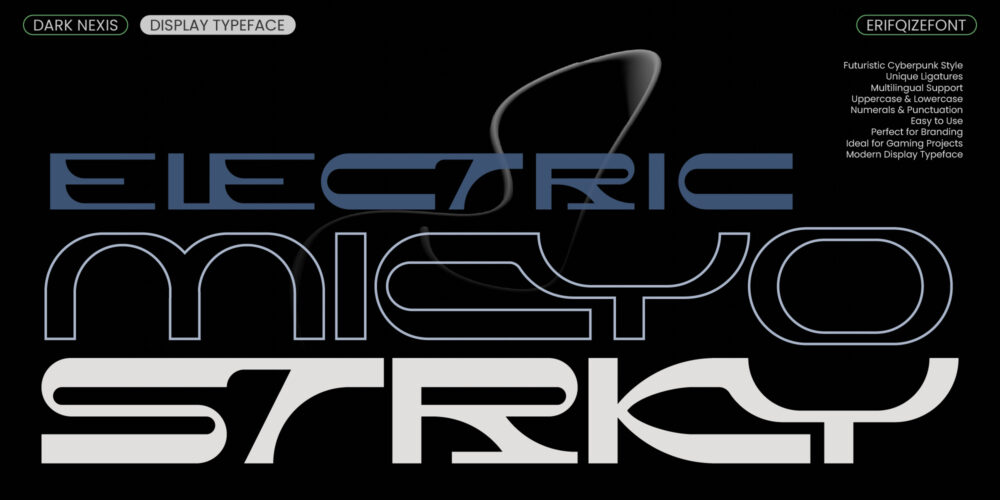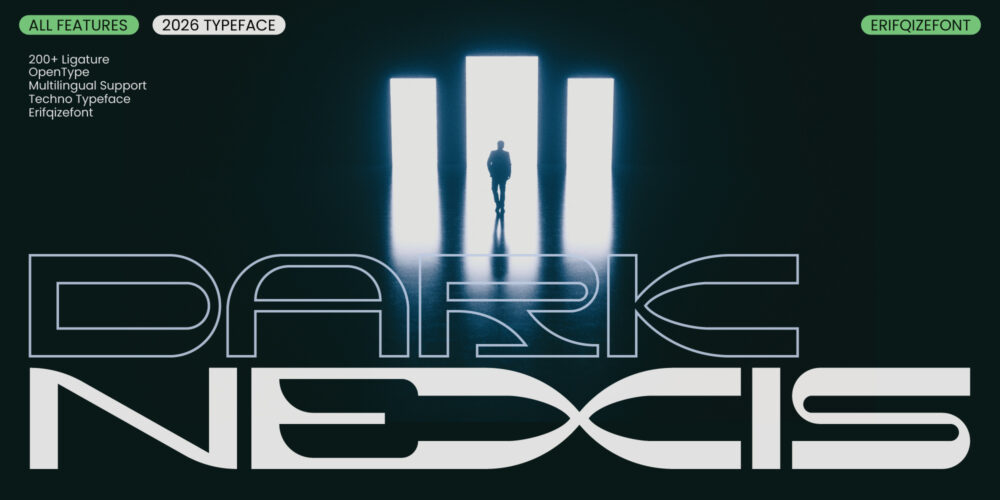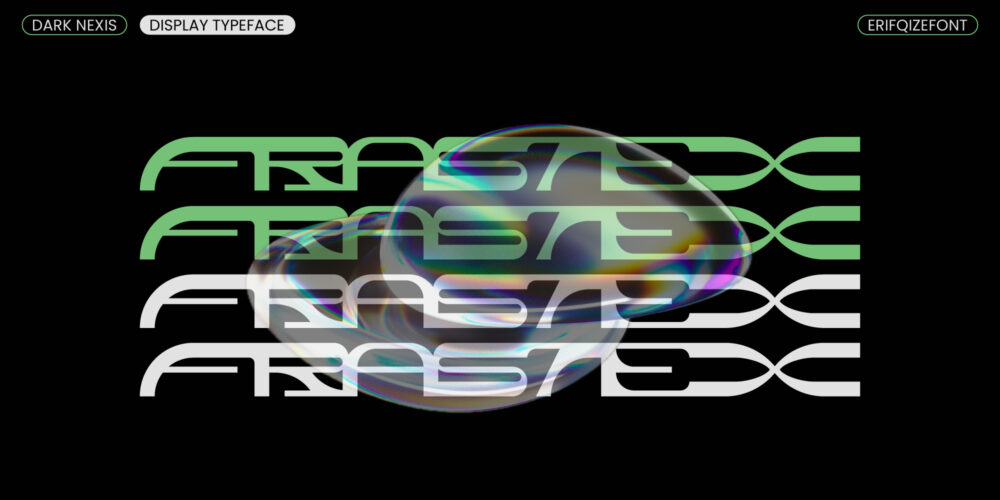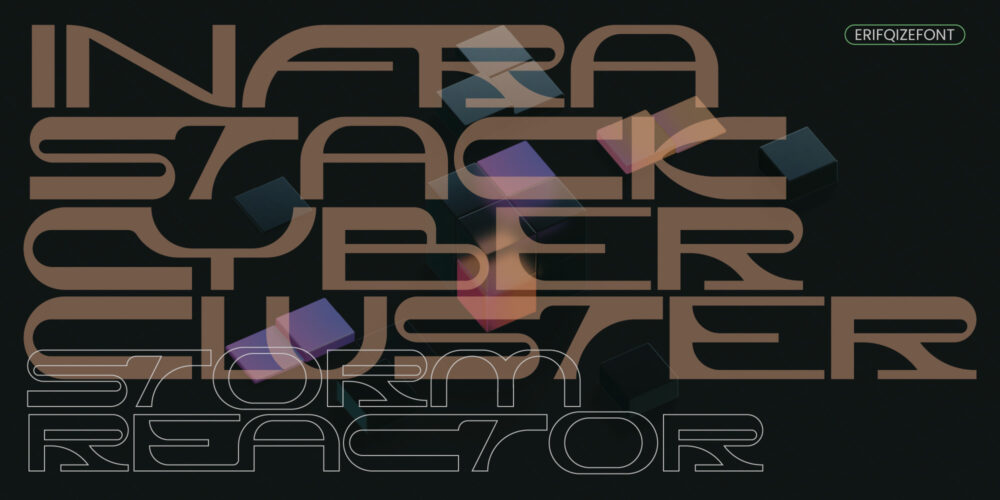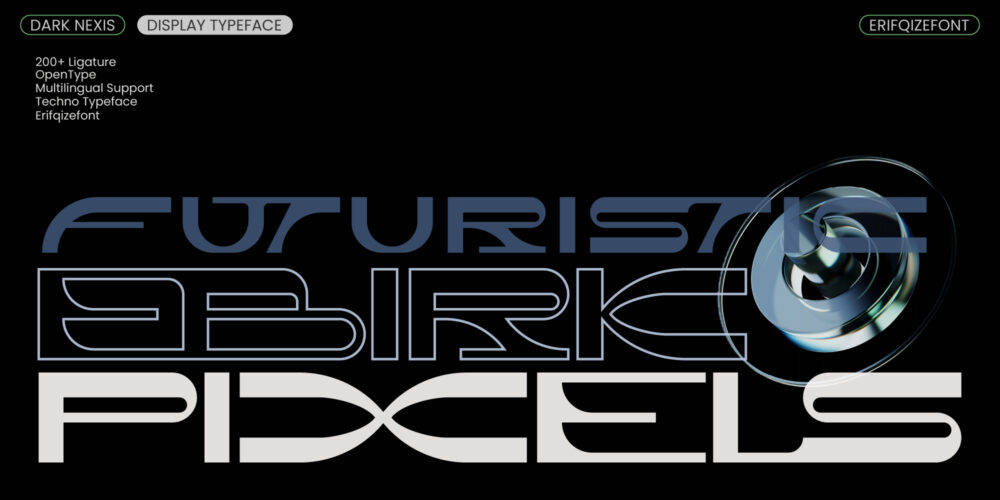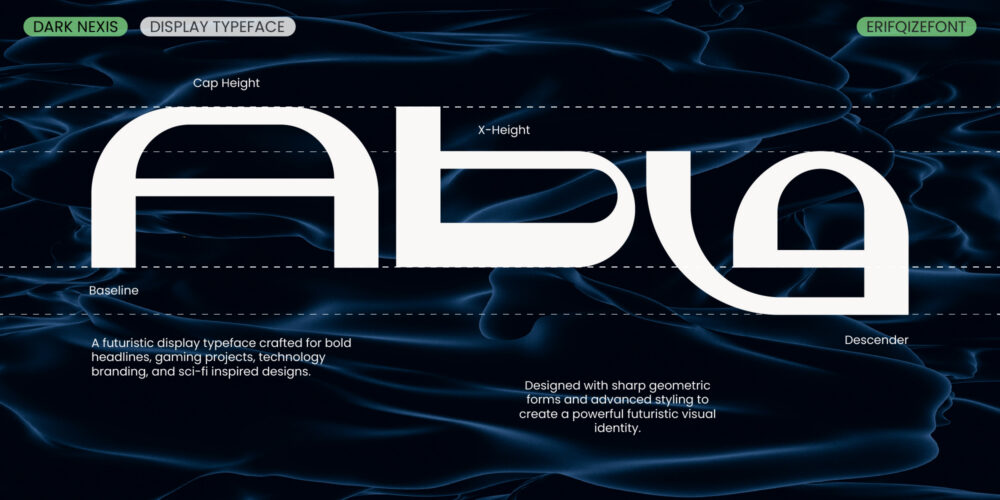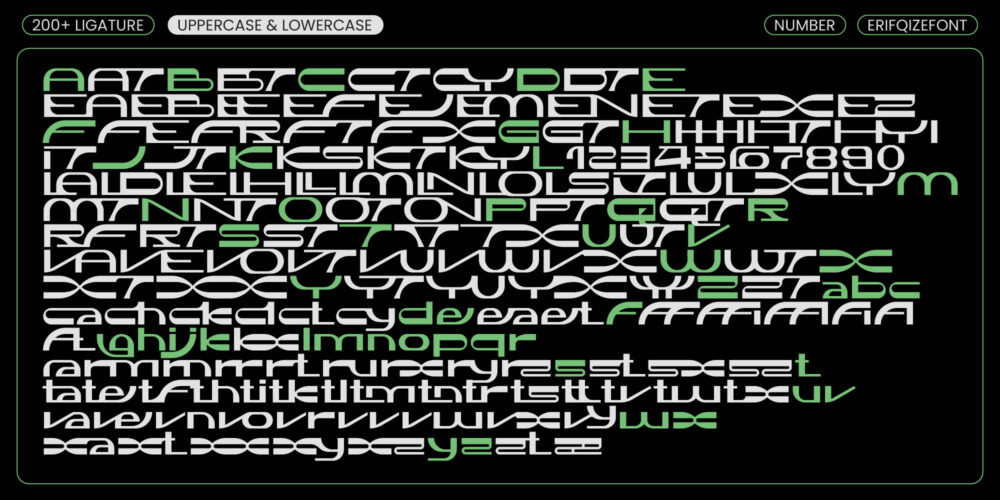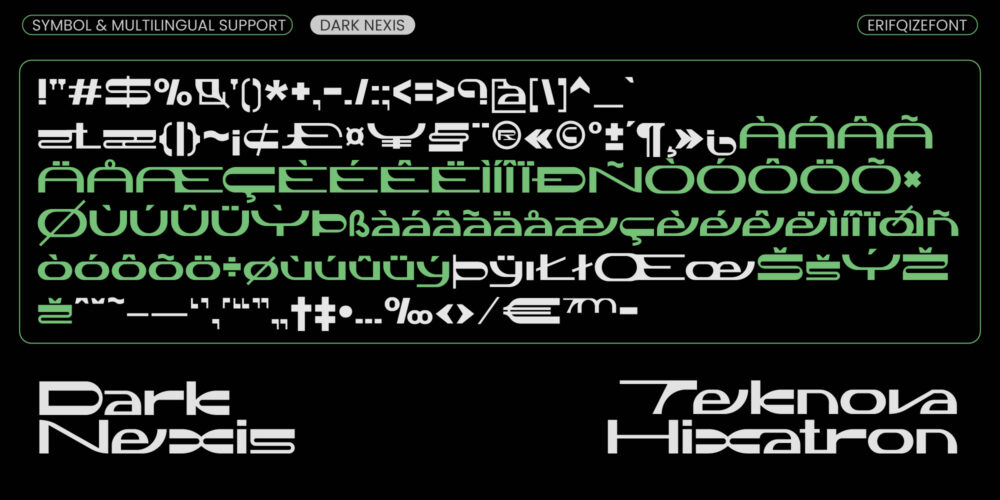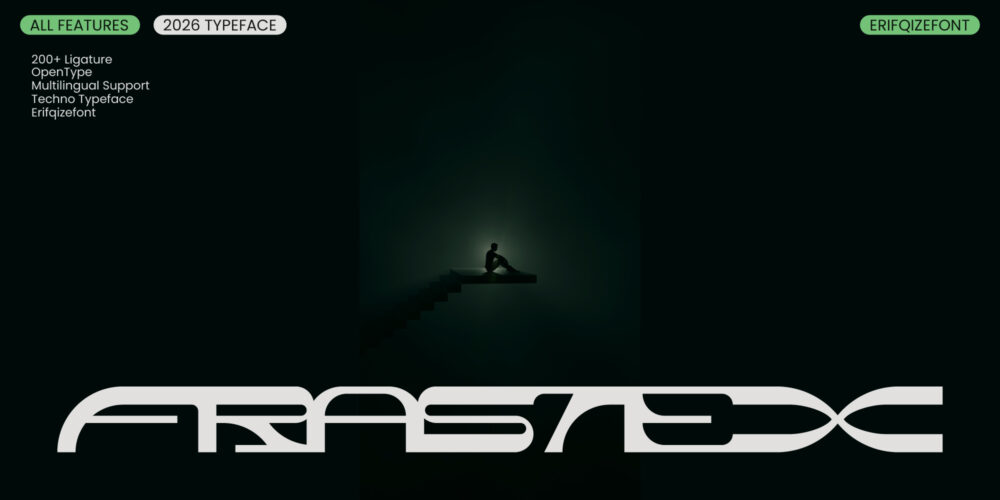
Dark Nexis
Introducing Dark Nexis, a cutting-edge font designed to push your creative boundaries and bring your visuals straight into tomorrow. Capturing a bold aesthetic as a definitive 2026 Typeface, this font seamlessly fuses cyberpunk, techno, and futuristic elements into a commanding layout, its distinct silhouette is perfectly tailored for high-impact science fiction projects, advanced tech branding, cinematic title designs, gaming interfaces, and modern street-wear merchandise.
The true strength of Dark Nexis lies in its incredible versatility and deep customization potential. It comes fully packed with over 200+ unique OpenType ligatures, giving you the freedom to create fluid, interconnected glyph combinations that elevate standard text into bespoke typography art. Furthermore, global reach is made effortless with extensive multilingual support, ensuring that your message remains cohesive and impactful across various international audiences and Latin-based languages.
Dark Nexis – Futuristic Font